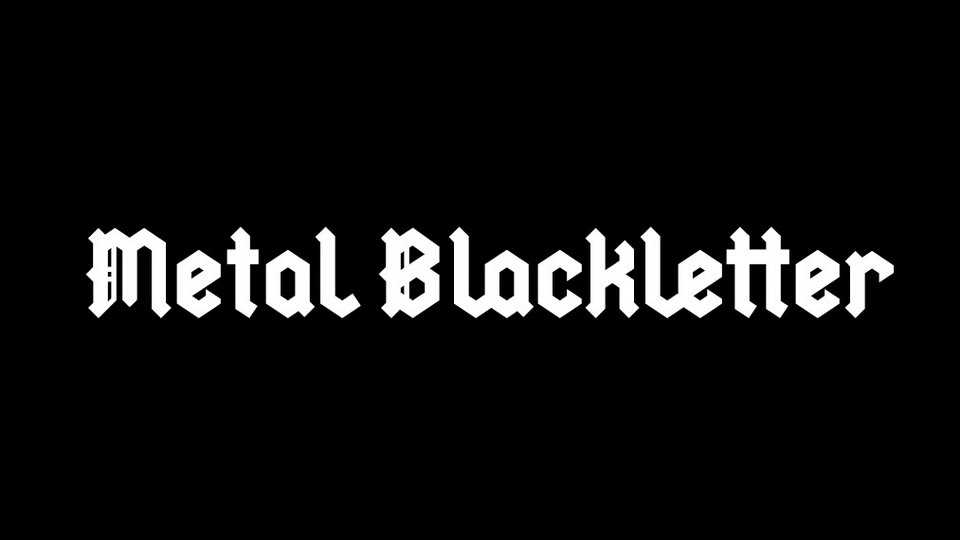
Download Metal Blackletter font a modern geometric blackletter typeface. Metal Blackletter font perfectly fits for headlines, posters, prints, logos for music bands and bikers, tattoo and other authentic designs.
Designer: Matt Smith